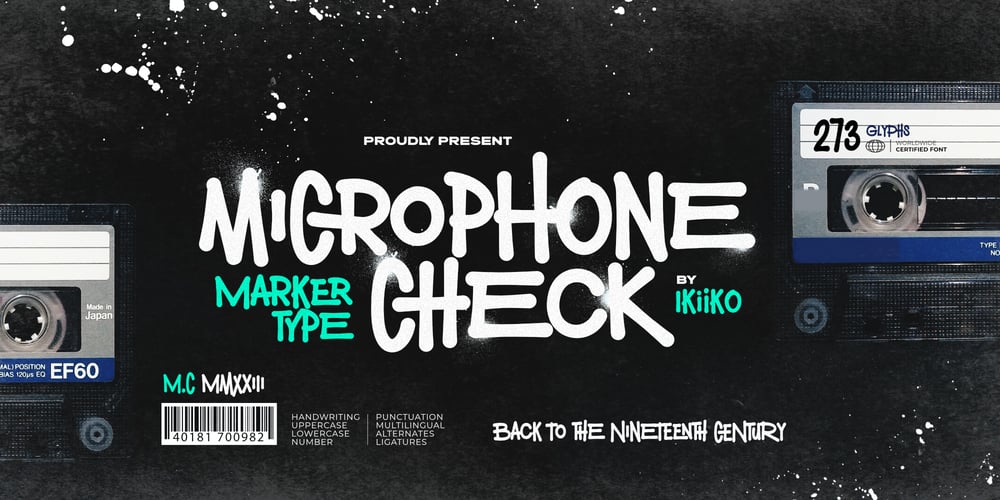
Microphone Check Font Family was designed by Andhika Pradana and published by IKIIKOWRK. Microphone Check contains 1 styles and family package options. Proudly present Microphone Check – Marker Type, created by ikiikoMicrophone Check is inspired by the bold and expressive signature strokes of the 90s street hip hop movement. In that era, freestyle marking was a method of self-expression that was closely associated with the underground graffiti scene.This typeface perfectly encapsulates the vitality, attitude and resilience of life on the streets. Sharp lines with bold, bold bodies characterize this type of marker, allowing for substantial fills and bright colors to stand out on any surface. It gave them the opportunity to express their originality and creativity while leaving their mark on the urban environment.This type is very suitable for making a street wear brand, book cover, movie title, magazine layout, poster, quotes, or simply as a stylish text overlay to any background image.What’s Included? Uppercase & Lowercase Numbers & Punctuation Alternates & Ligature Multilingual Support Works on PC & Mac